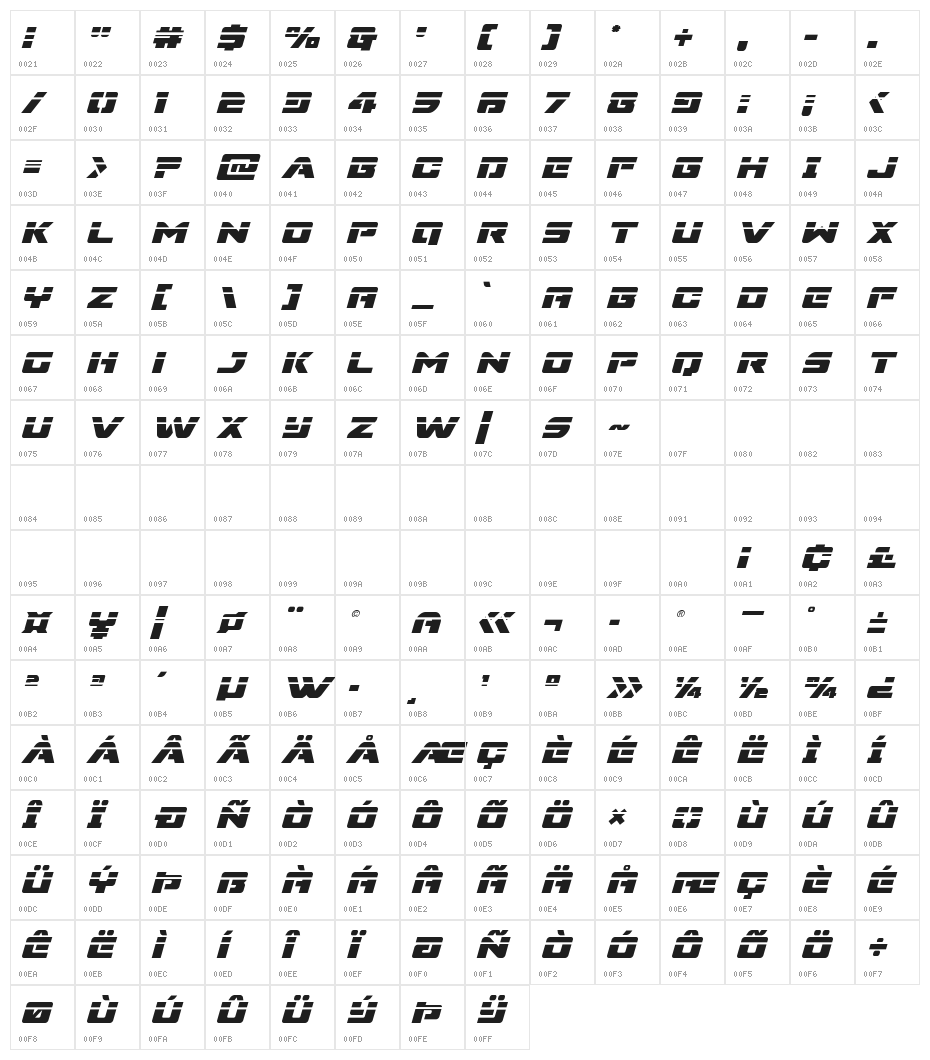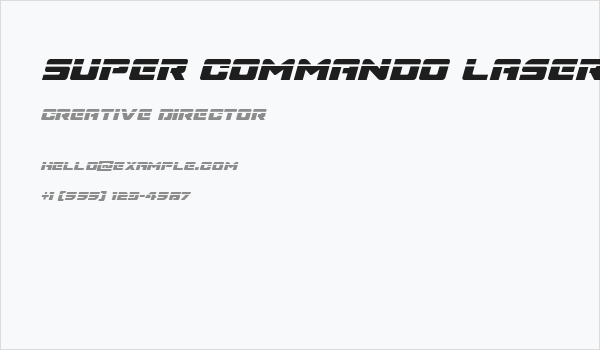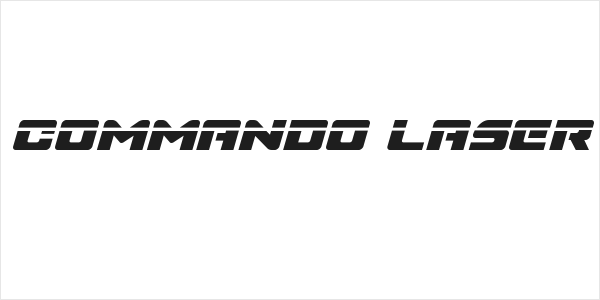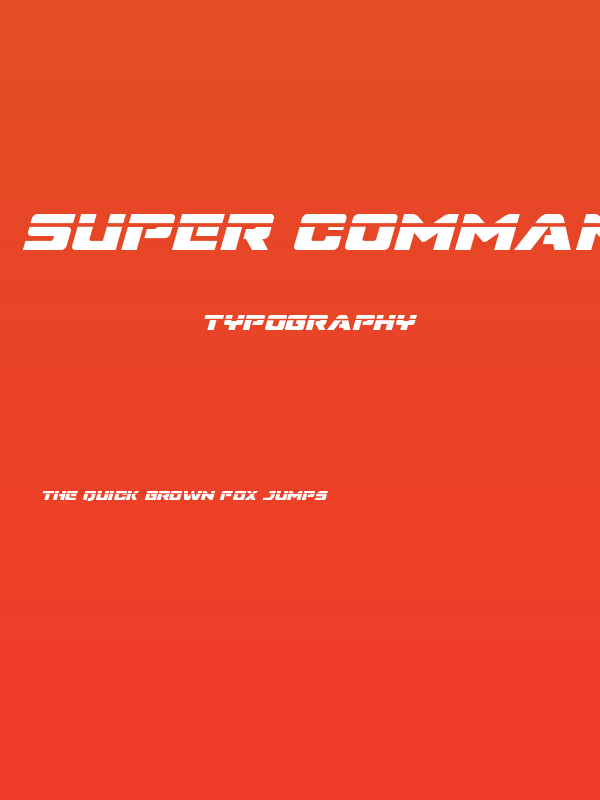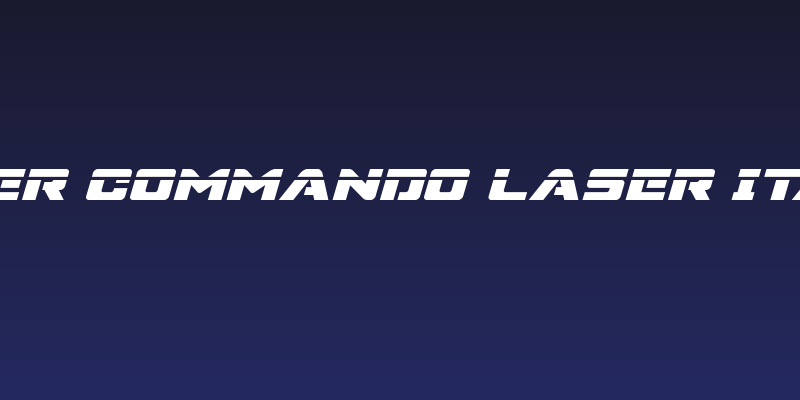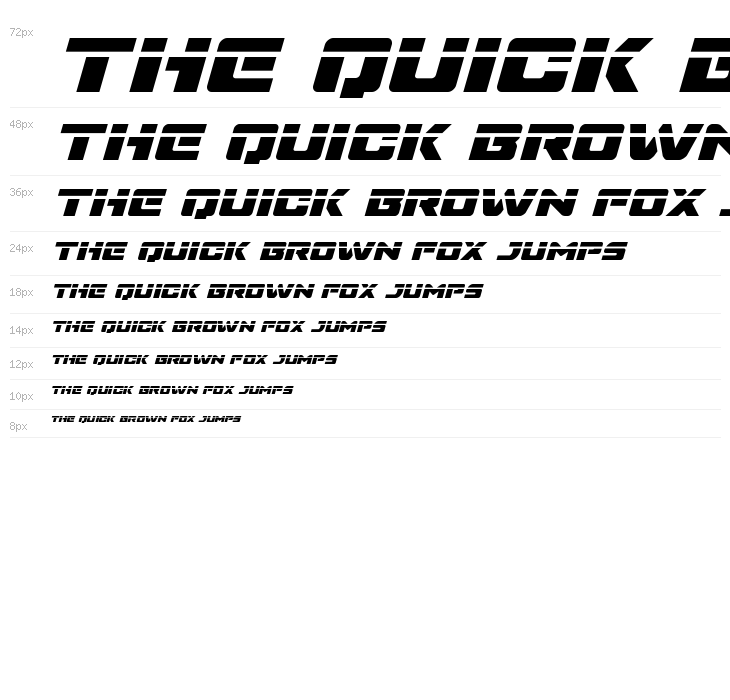
Super Commando Laser Italic Font
Super Commando Laser Italic Description
This font features a bold and futuristic design with sharp, angular edges and a distinct italic slant. The characters are wide and imposing, giving a sense of strength and modernity. The uppercase letters are particularly striking, with a consistent geometric style that is mirrored in the lowercase and numeral sets. Special characters maintain the same bold aesthetic, ensuring uniformity across all glyphs. The font's design is reminiscent of sci-fi and action themes, making it ideal for projects that require a dynamic and impactful visual presence.
| Proposed Projects | Ideal for sci-fi themed posters, video game titles, action movie graphics, and futuristic branding. |